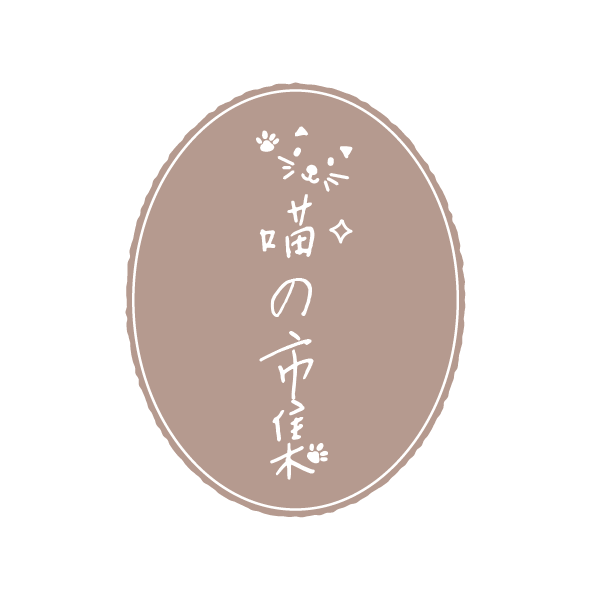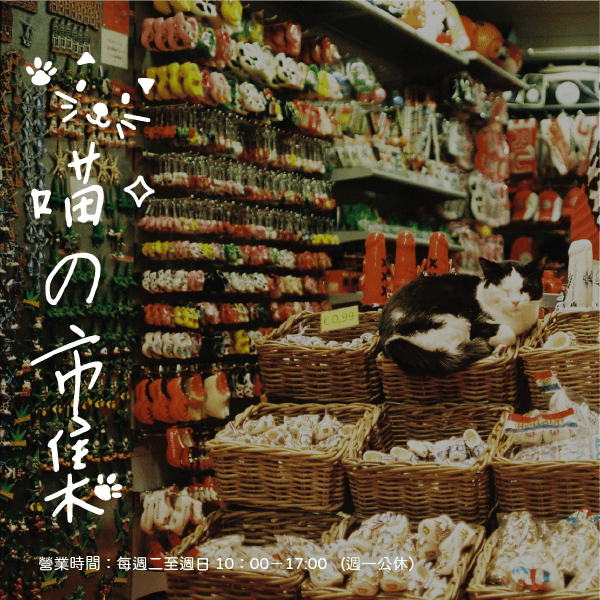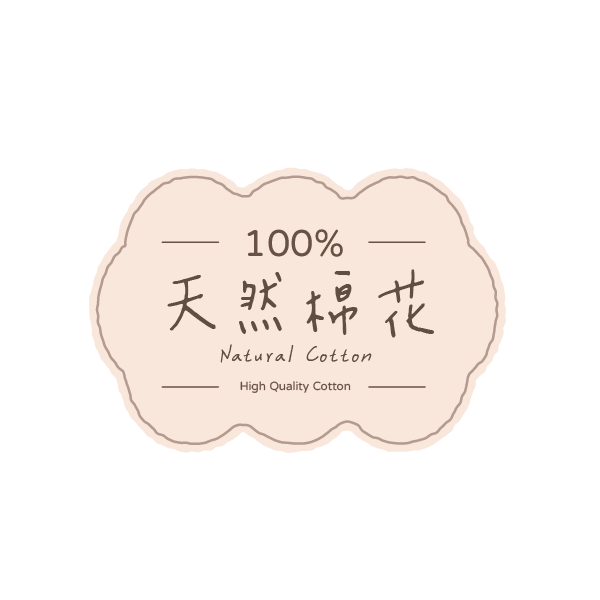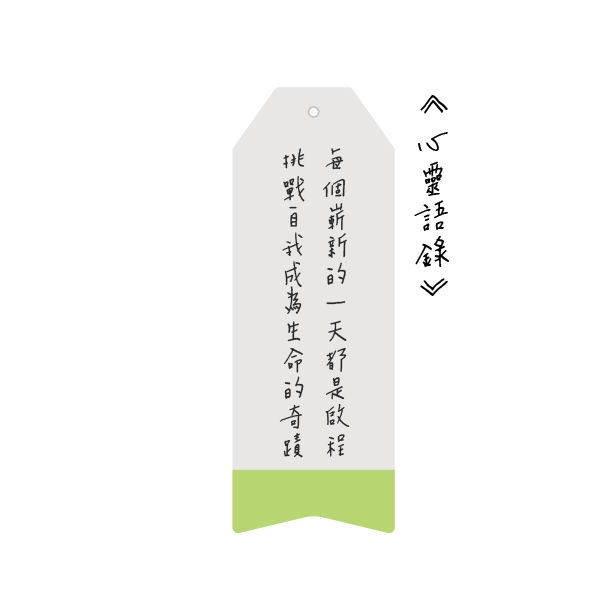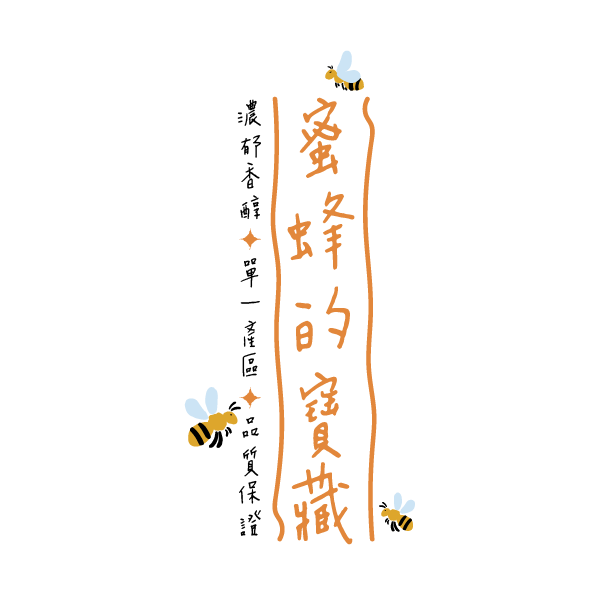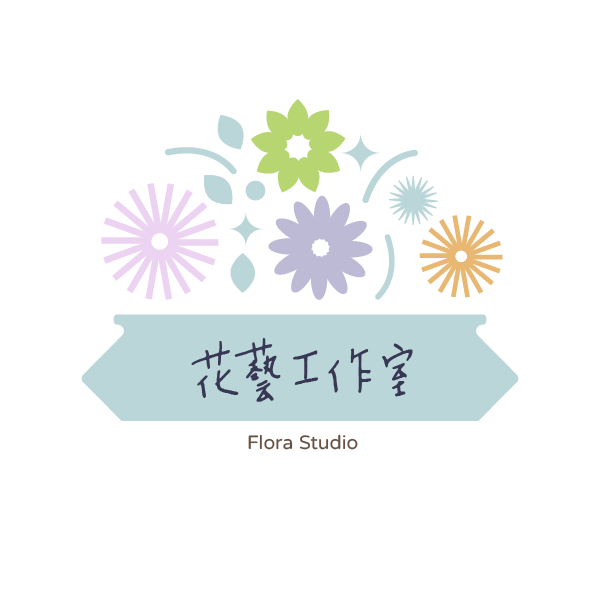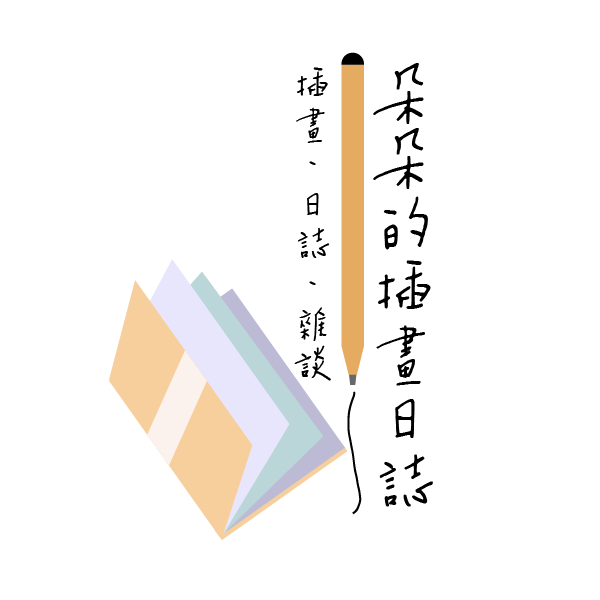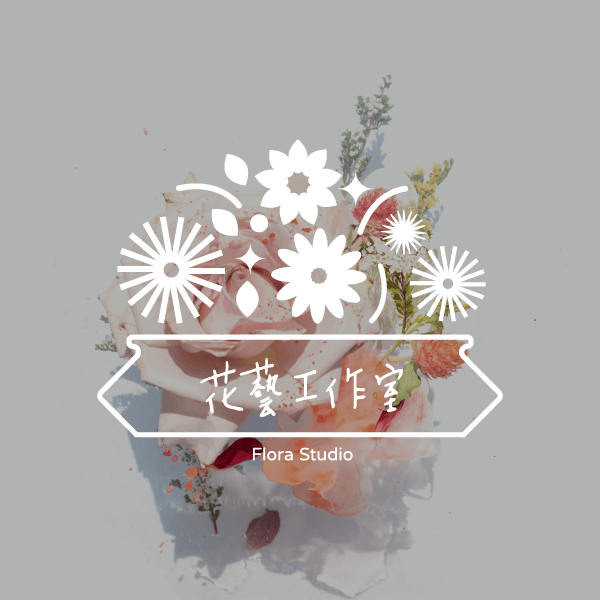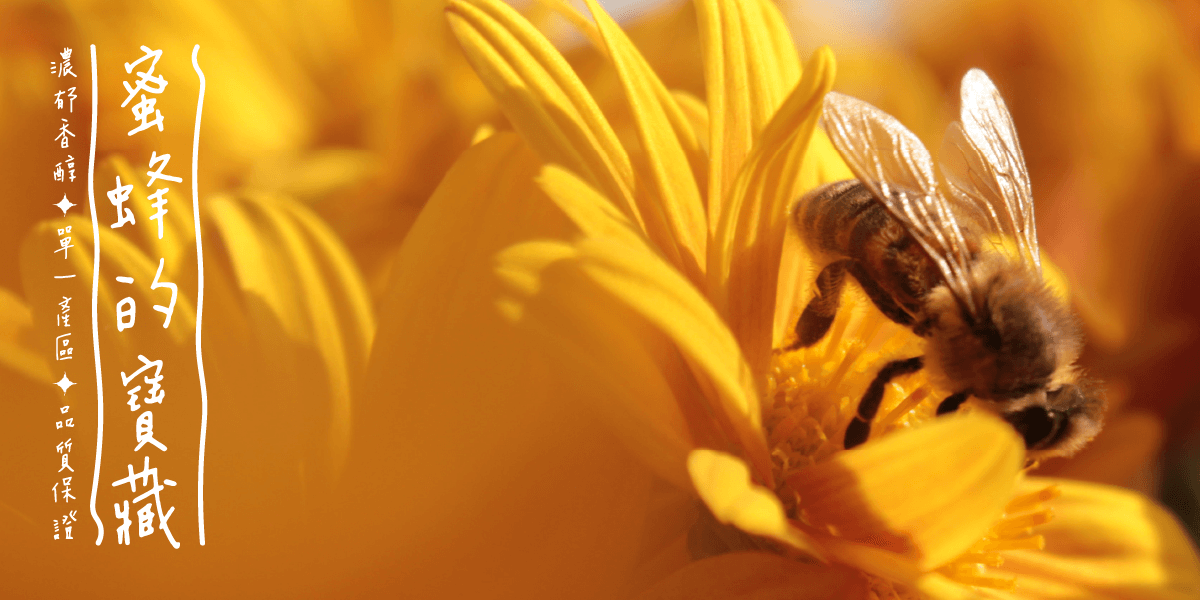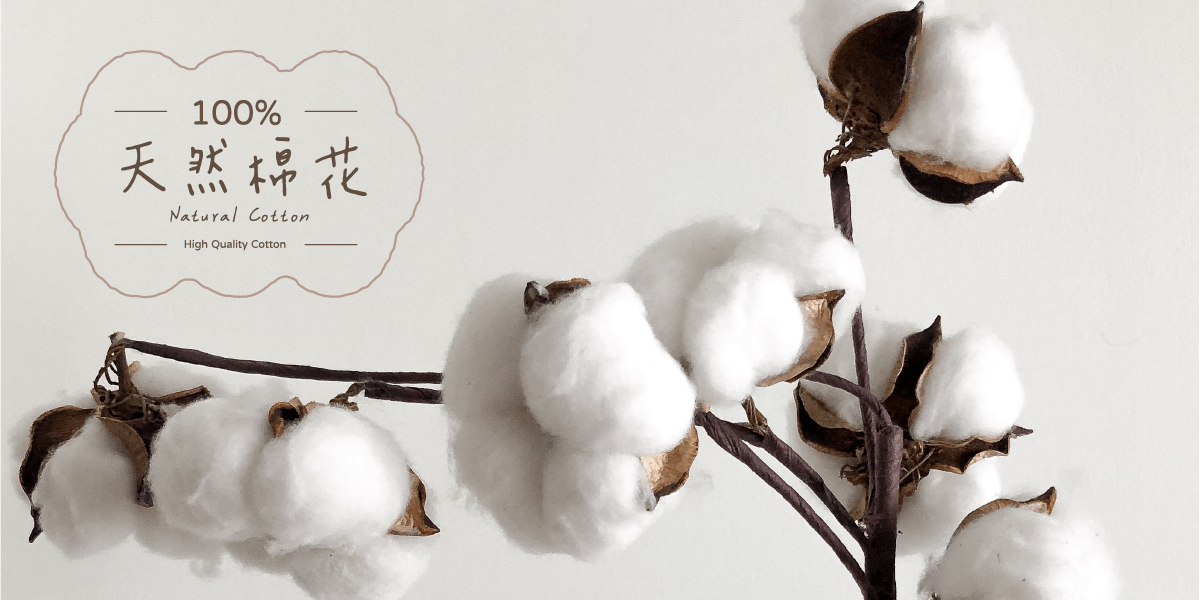
Dou Dou Font
With graceful lines and restrained, steady strokes, this monospaced font is crafted with care and precision.Every horizontal and vertical line is thoughtfully rendered, turning each character into a heartfelt gesture.